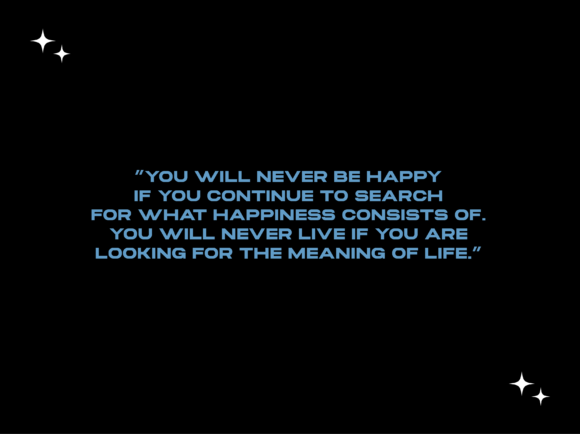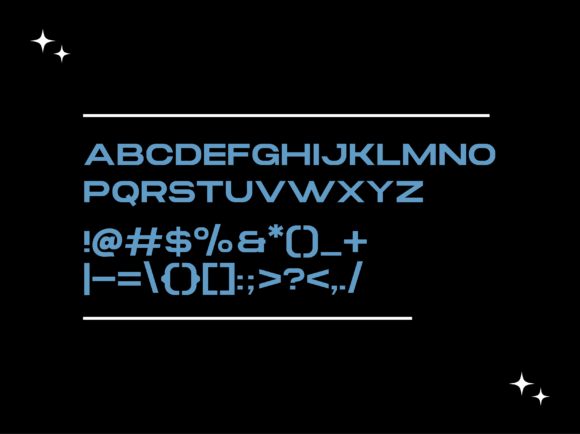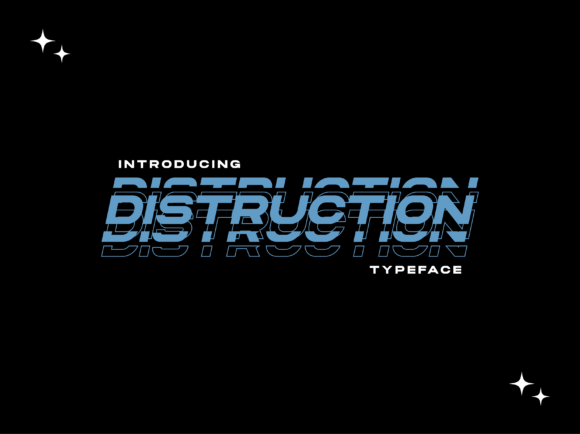
Unleash Your Creativity with Distruction Font: A Modern Display Font
In the world of design, typography plays a crucial role in conveying messages and setting the tone for a project. A well-chosen font can elevate your creations and make them stand out from the crowd. If you’re a designer or crafter looking for a modern and versatile display font, look no further than Distruction Font. In this article, we’ll explore the features and benefits of Distruction Font and how it can add a touch of sophistication to your designs.
What is Distruction Font?
Distruction Font is a neat, clean, and modern display font designed to make a statement. Its sleek lines and minimalist aesthetic make it perfect for a wide range of projects, from branding and advertising to packaging and digital media. With its unique character and versatility, Distruction Font is sure to leave a lasting impression on your audience.
Key Features of Distruction Font
- Clean and Modern Design: Distruction Font boasts a clean and modern design that will add a touch of sophistication to your creations.
- Versatile: This font is highly versatile and can be used in a variety of projects, from digital media to print materials.
- Easy to Read: Despite its modern design, Distruction Font is easy to read, making it perfect for body text and headings.
- Highly Customizable: With Distruction Font, you can experiment with different colors, sizes, and styles to create a unique look that suits your project.
Benefits of Using Distruction Font
So, why choose Distruction Font for your next project? Here are just a few benefits of using this amazing display font:
- Stand Out from the Crowd: With Distruction Font, you can create designs that stand out from the crowd and grab attention.
- Professional Look: This font gives your designs a professional and polished look that’s sure to impress your audience.
- Time-Saving: With Distruction Font, you can save time and effort in creating custom typography for your projects.
- Cross-Platform Compatibility: Distruction Font is compatible with a wide range of devices and platforms, ensuring that your designs look great everywhere.
How to Use Distruction Font in Your Designs
Using Distruction Font in your designs is easy. Here are a few tips to get you started:
- Pair it with Other Fonts: Experiment with pairing Distruction Font with other fonts to create a unique and harmonious look.
- Experiment with Colors: Try out different colors and gradients to add depth and interest to your designs.
- Play with Sizes: Experiment with different font sizes to create visual hierarchy and emphasis in your designs.
In conclusion, Distruction Font is a modern and versatile display font that’s perfect for designers and crafters looking to elevate their creations. With its clean design, versatility, and ease of use, Distruction Font is sure to become a staple in your design toolkit. So why wait? Add Distruction Font to your designs today and notice the impact it has on your creations!
Distruction Font is a neat, clean and modern display font. It can easily fit into any project idea, so add it to your designs, and notice its impact on your creations!